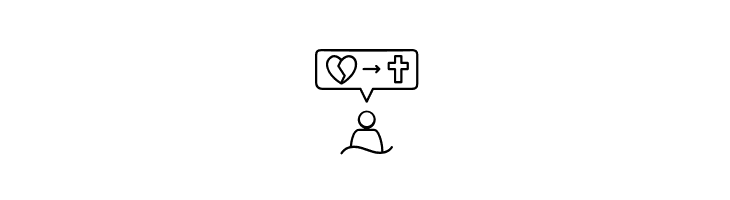
A clean, outlined font with rounded edges, perfect for educational use.
Hand-drawn pictogram icon font for social and community themes.
Minimalist, thin-line religious icon set with a modern feel.